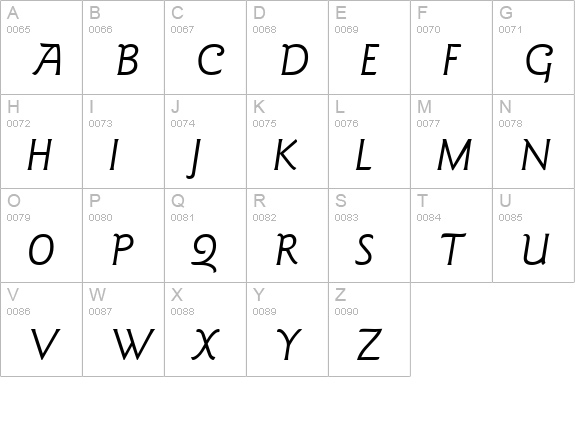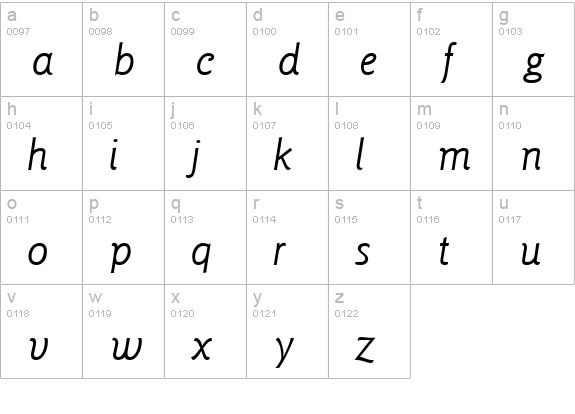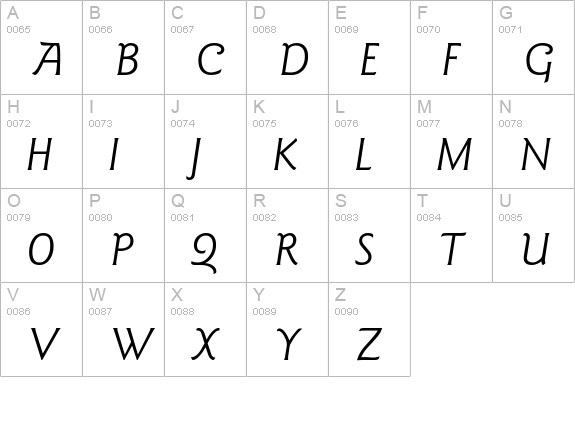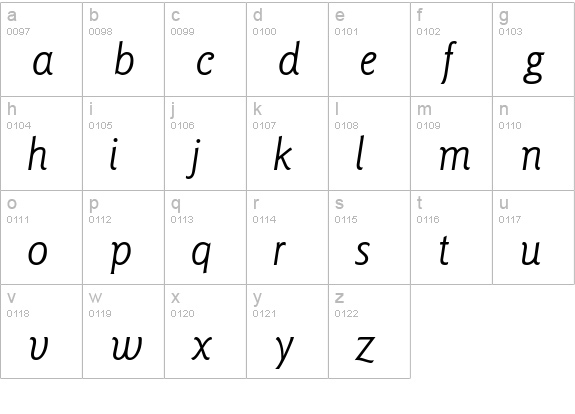
Goudy Italic Font Details
Goudy Italic is a distinctive, italic variant in the Goudy typeface family \xE2\x80\x94 well suited to design and typography projects.
Goudy Italic font exudes elegance and sophistication with its graceful curves and timeless appeal. This classic typeface captures the essence of traditional calligraphy, giving any text a touch of refined beauty. Its slender, slanted design adds a sense of dynamism and movement to the words, making them come alive on the page. The Goudy Italic font is perfect for adding a touch of sophistication to invitations, branding materials, and editorial designs. Its versatility allows it to be used in a variety of projects, from wedding stationery to high-end fashion magazines. Best of all, Goudy Italic font is freely available to download at FontsMarket.com. Now you can elevate your designs with this exquisite typeface without any cost, making it accessible to all designers and creatives looking to add a touch of elegance to their work. Download Goudy Italic font today and experience the beauty and grace it brings to your projects.